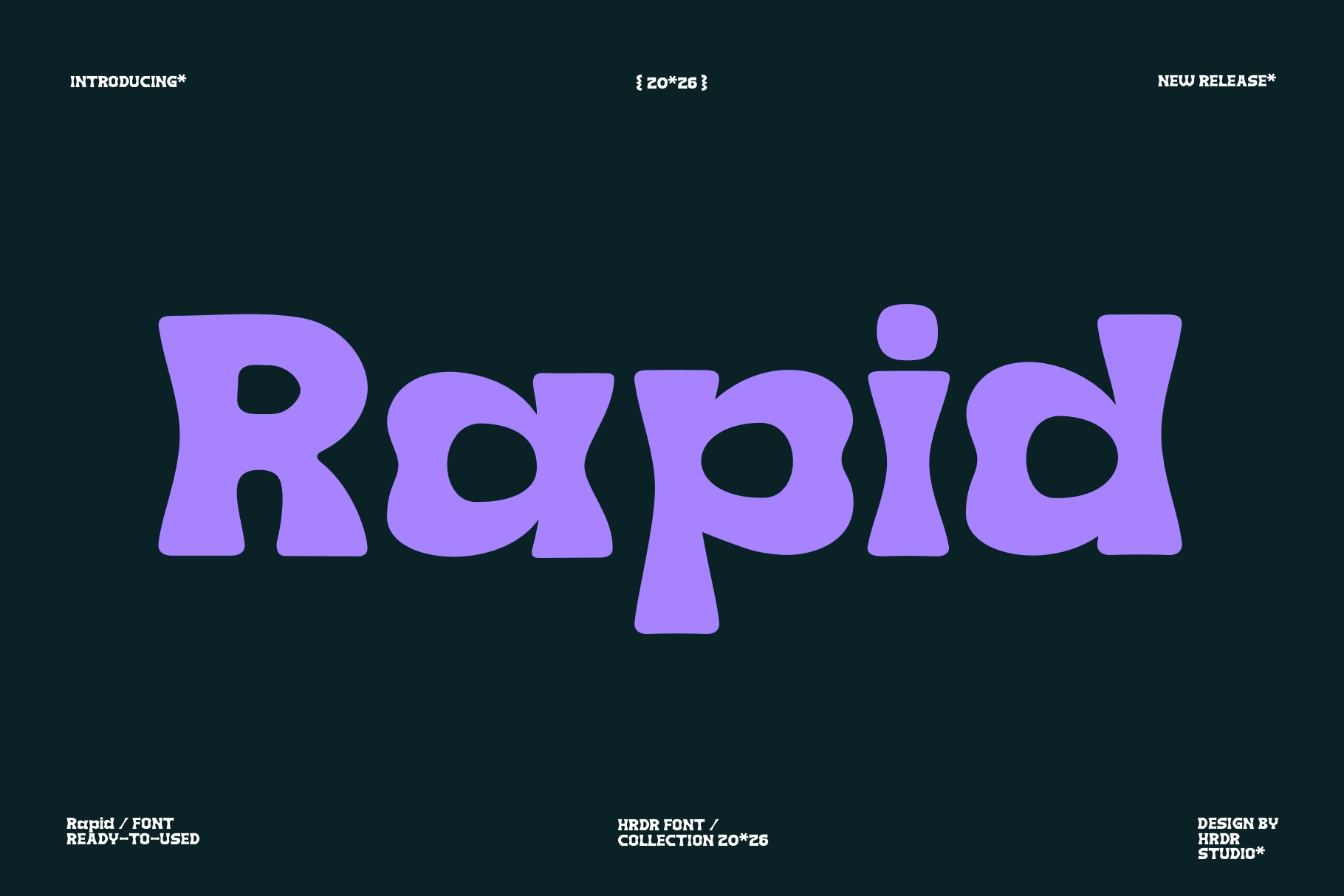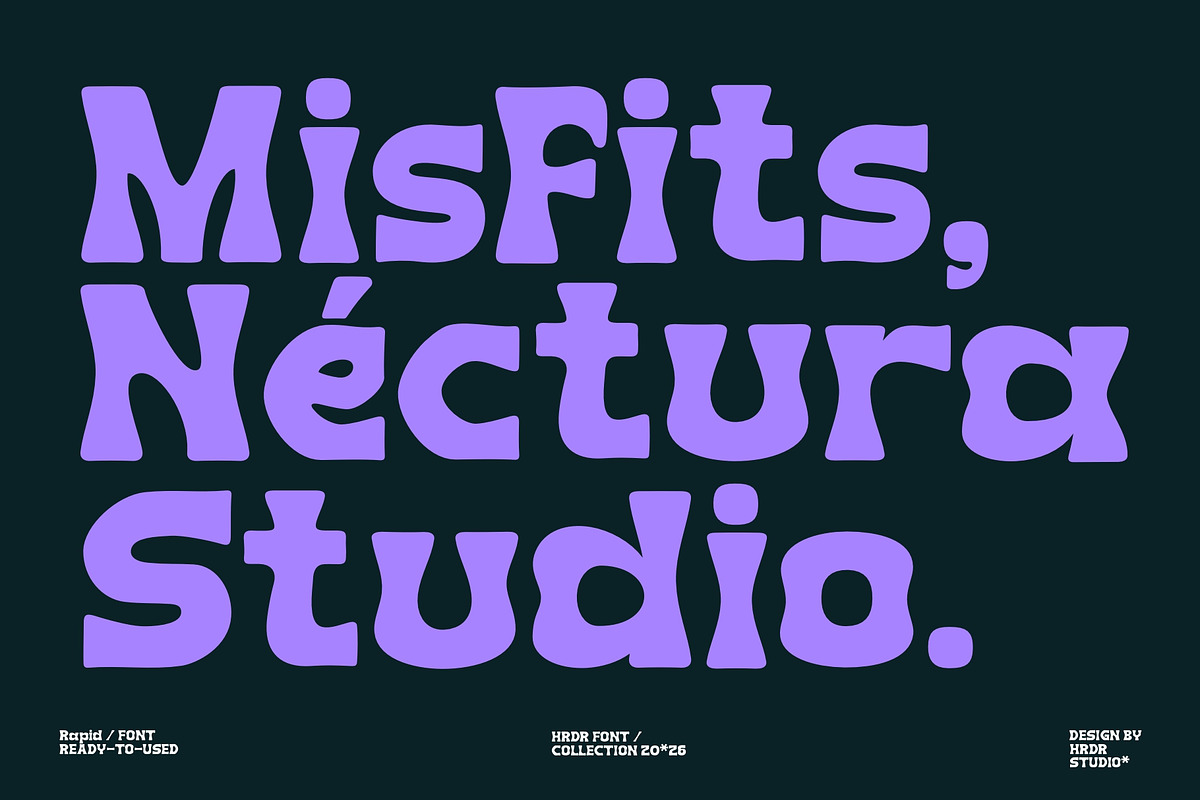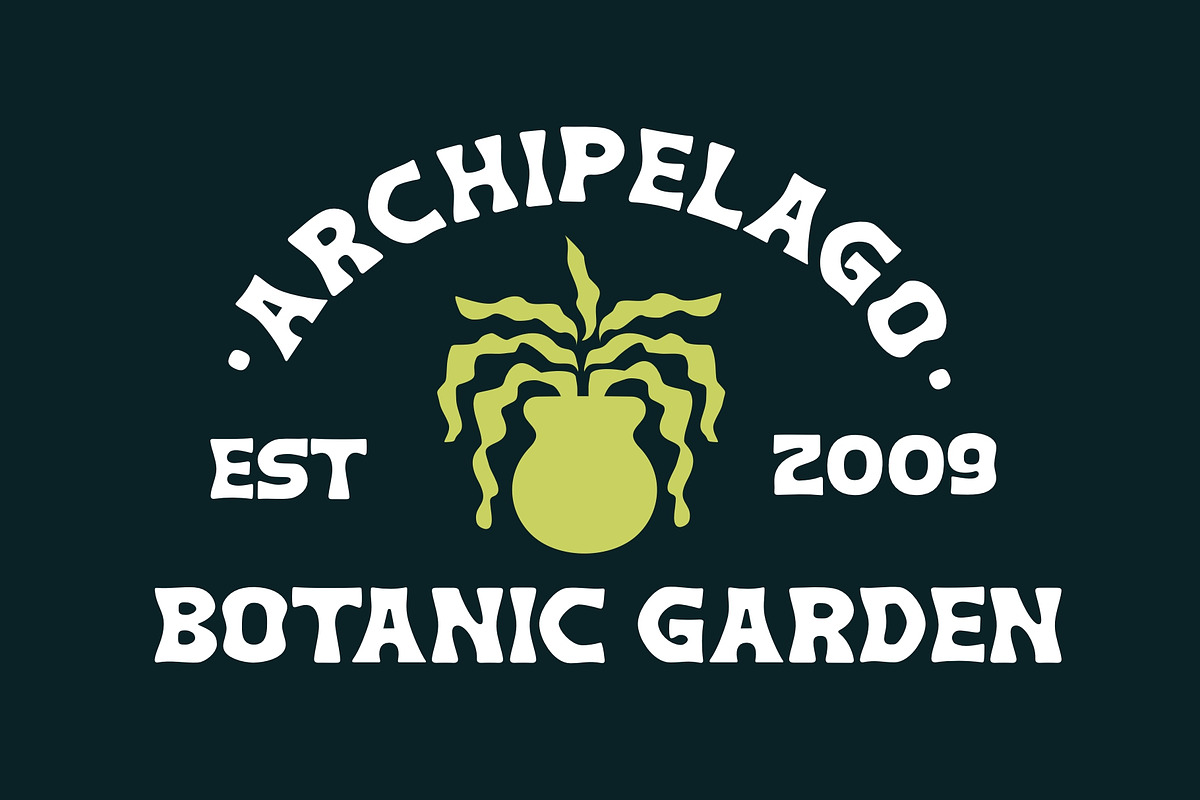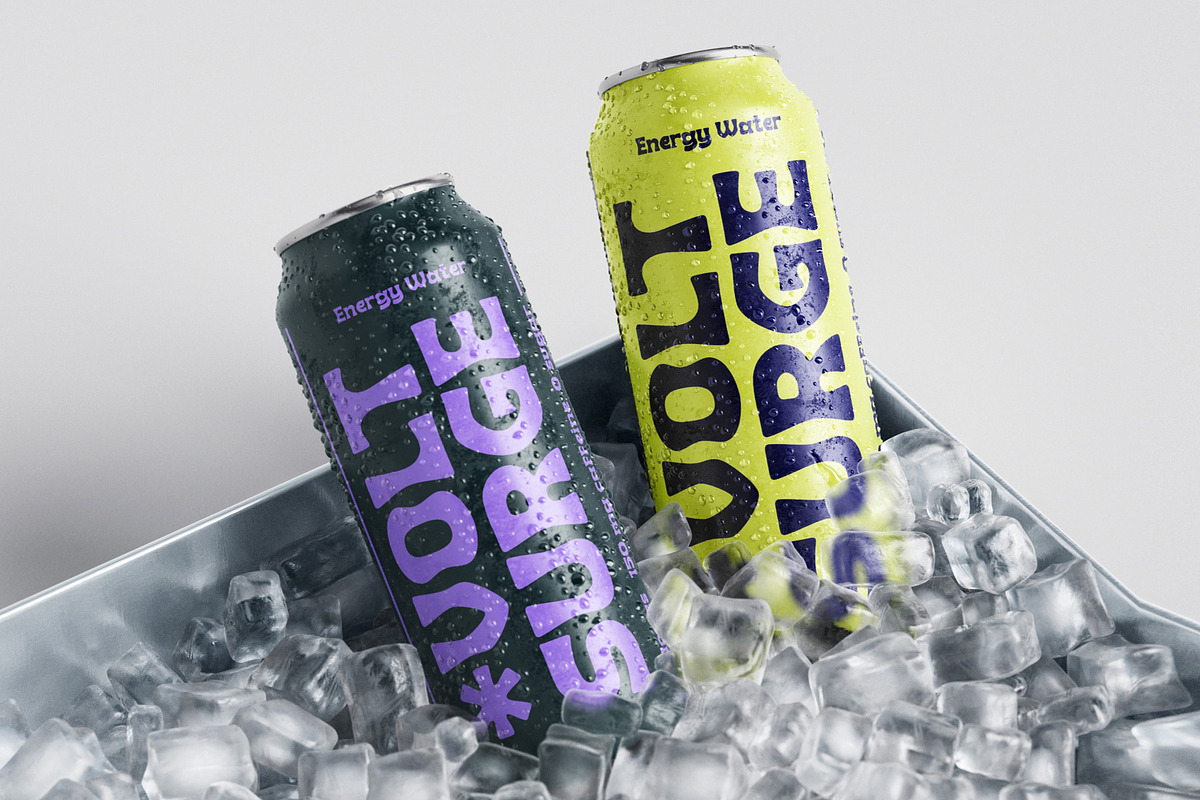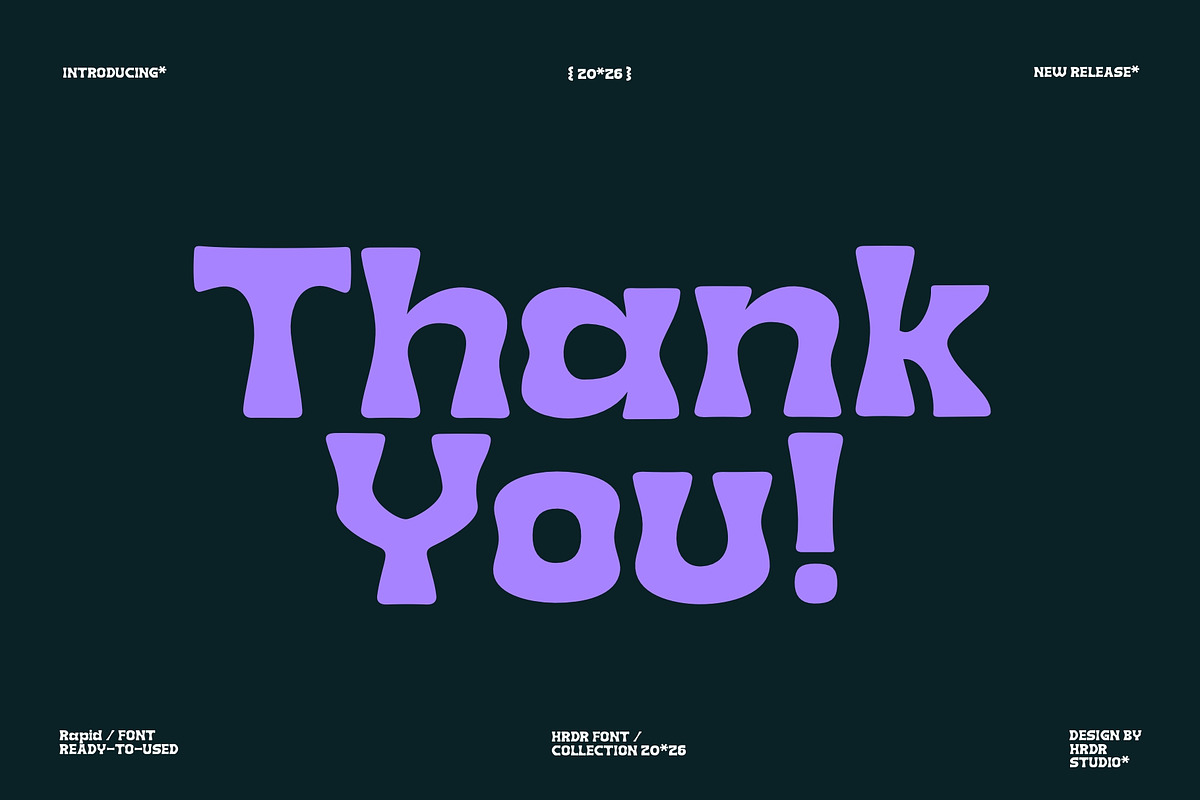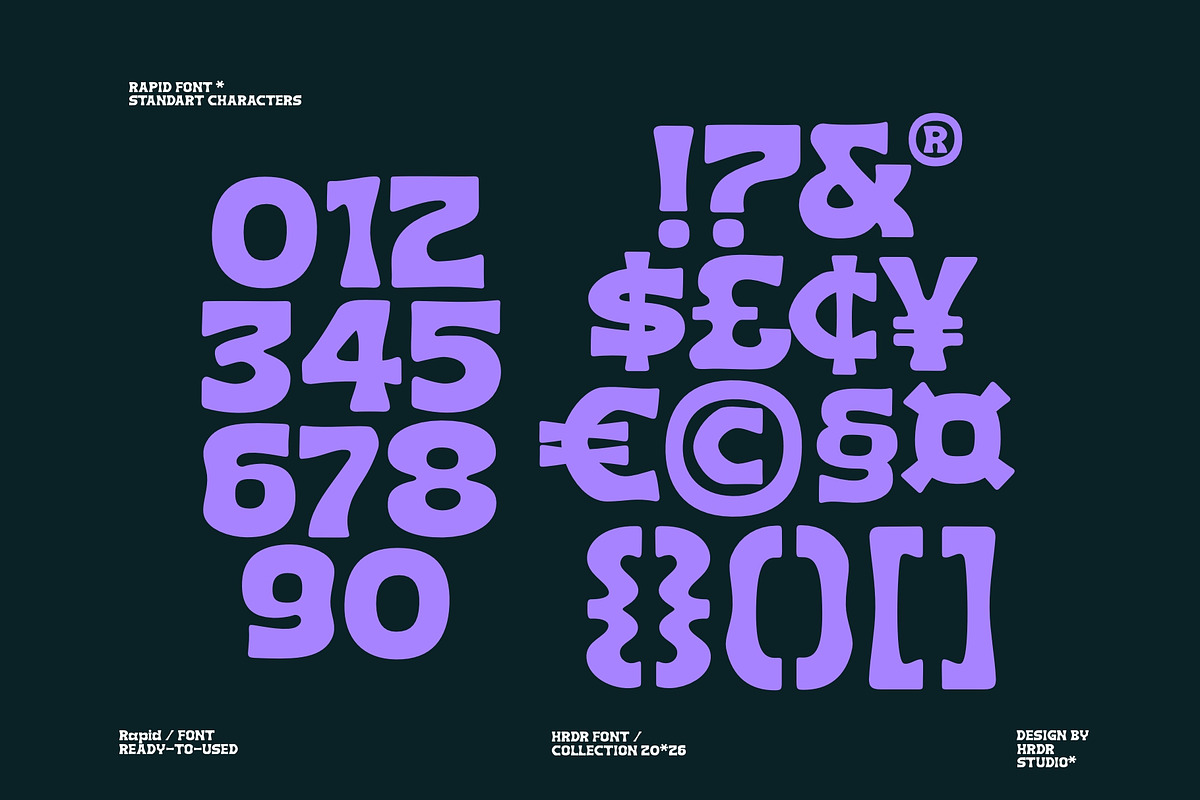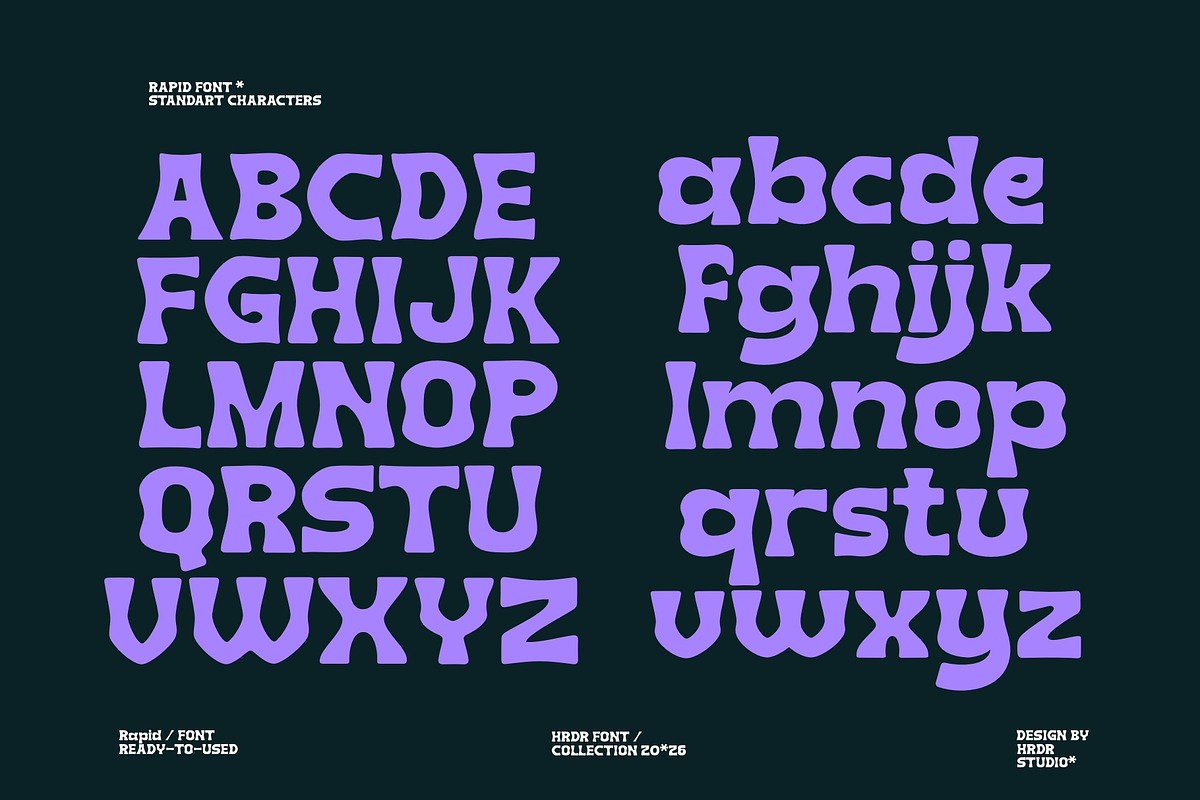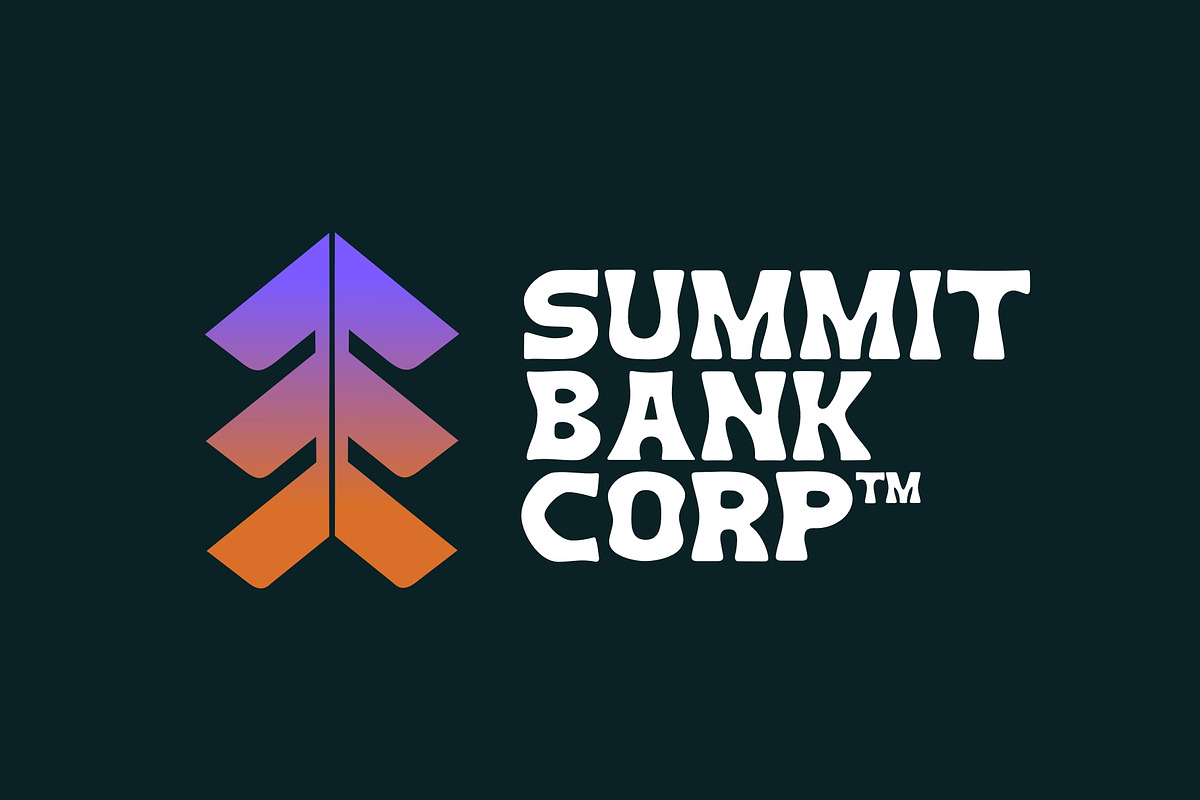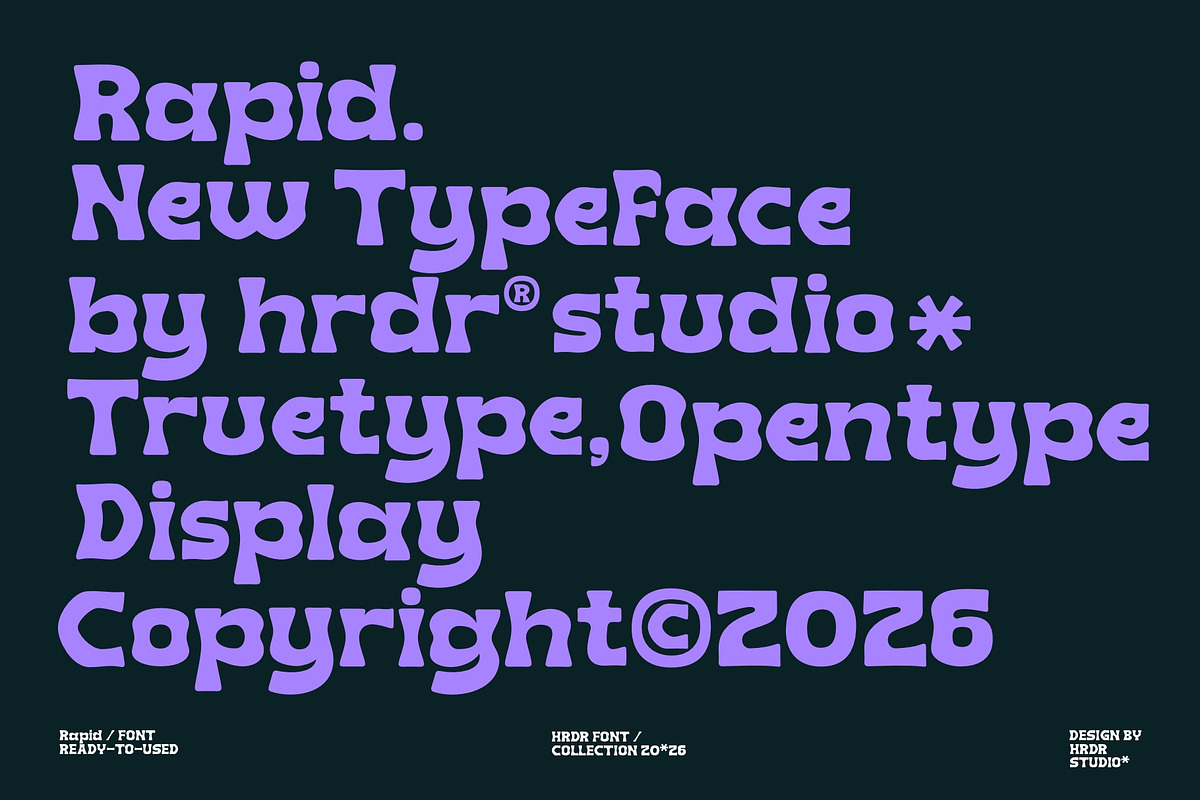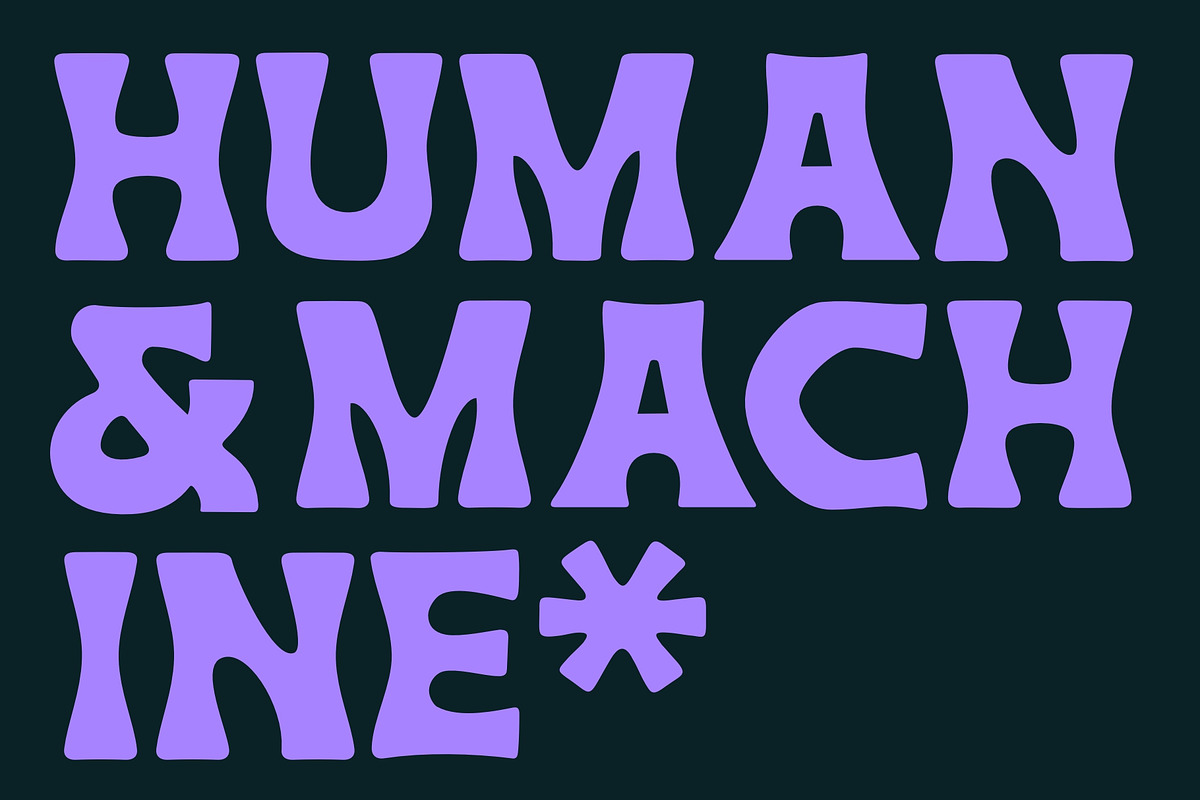
Rapid ( New Font )
Rapid is a modern type style Designed to stand out is perfect for giving bold impressions, that is perfect for logos, branding , film, motion graphic, logotype, signage, flyer, packaging and more. This font brings a strong feel yet elegant look that you can use for many purposes.
- numeric & Multilingual support
- Standart Ligatures
-Stylistic Alternates with Ss01